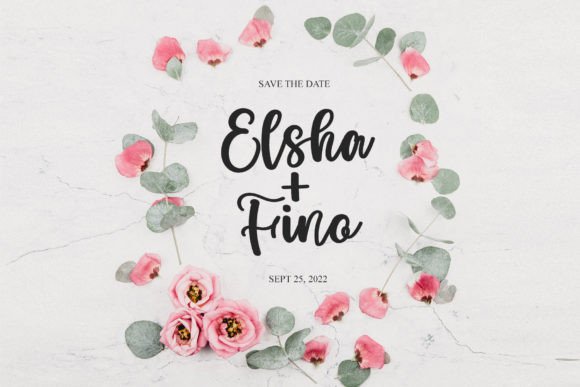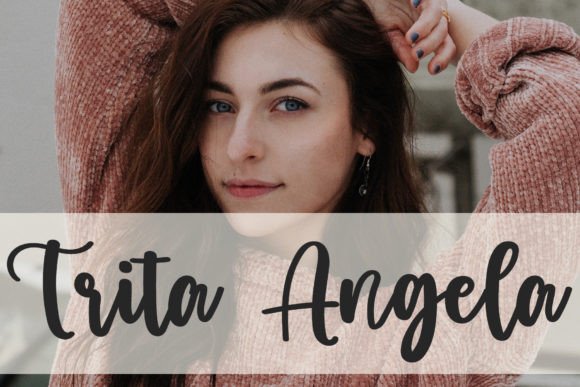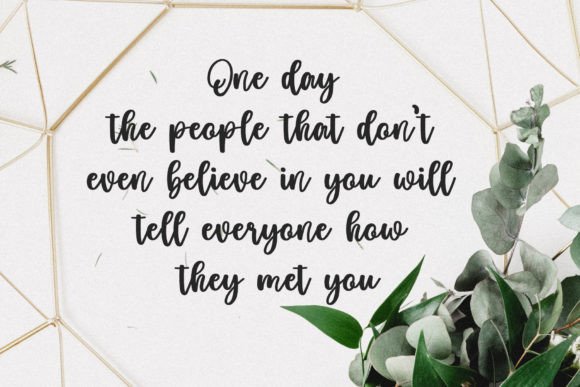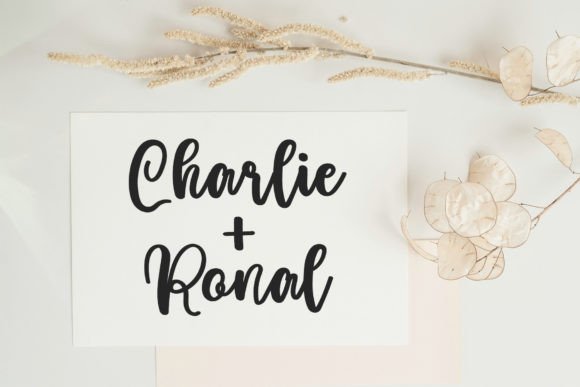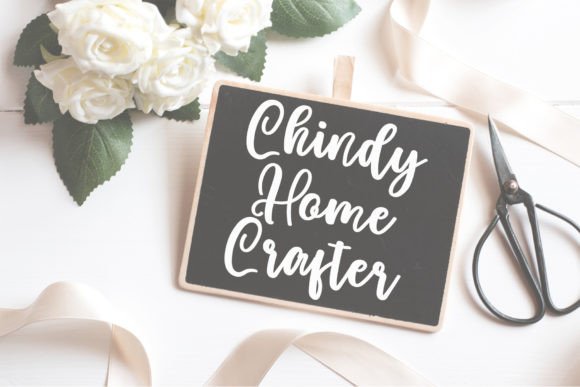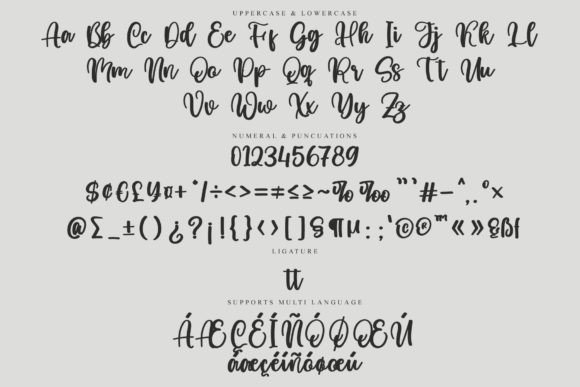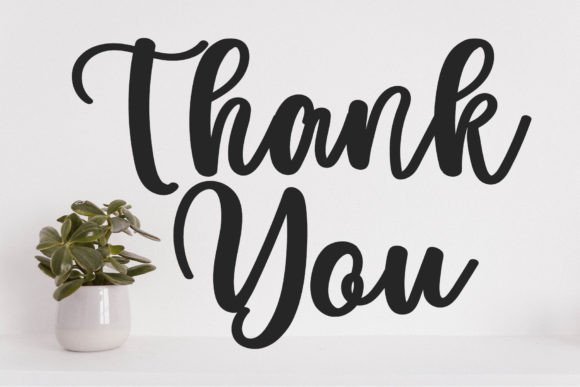
Whinsel Font
“Whinsel” is described as a bold and exquisite handwritten font that exudes style, grace, and flow. With its bold and graceful script style, this font has the power to elevate the visual appeal of your beautiful creations while maintaining a sense of grounded naturalness.
The charm of “Whinsel” lies in its ability to bring a sense of sophistication and natural beauty to your designs. Whether you’re working on branding, logos, invitations, posters, or any creative endeavor, this font offers a stylish and graceful option that enhances the overall aesthetics of your projects.
As you incorporate “Whinsel” into your creative process, you’ll discover its remarkable ability to enhance your work, making it visually captivating and memorable. This font becomes a trusted choice for designers looking to create designs that exude both style and an authentic, grounded quality.
In summary, “Whinsel” is a bold and exquisite handwritten font that excels in adding sophistication and a touch of natural beauty to a wide range of design projects. Its bold yet graceful style makes it an excellent choice for designers seeking to create visually striking and grounded work. Allow “Whinsel” to be your creative companion, and watch how it enhances your creations, ensuring they radiate with style and an authentic, natural charm, while captivating your audience.